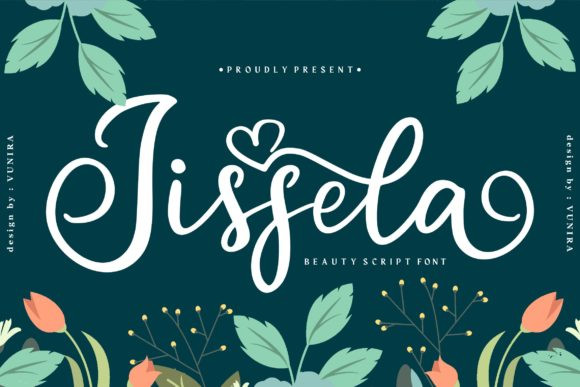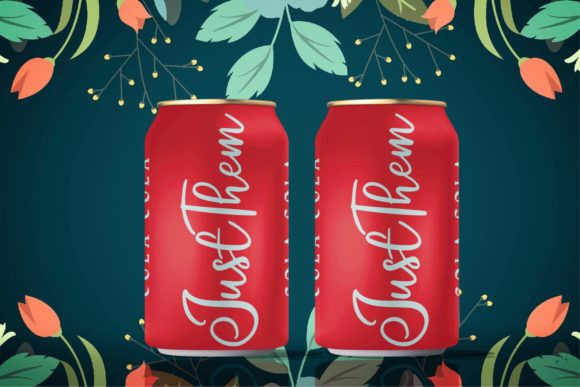
Jissela Font
Jissela is a delicate and flowing brushed handwritten font. It is suitable for any branding, product packaging, invitation, quote, t-shirt, label, poster, logo that you wish to develop.